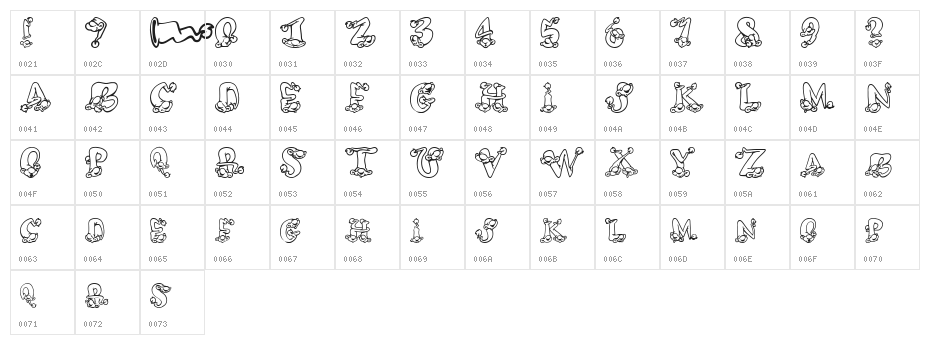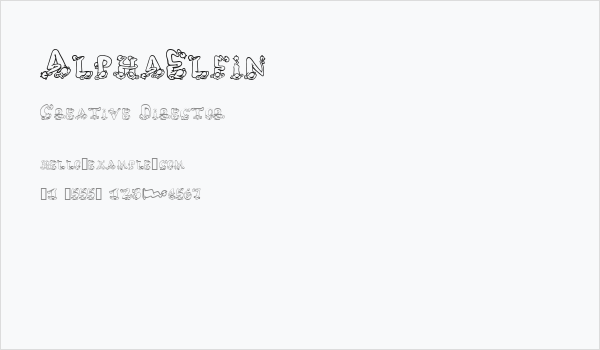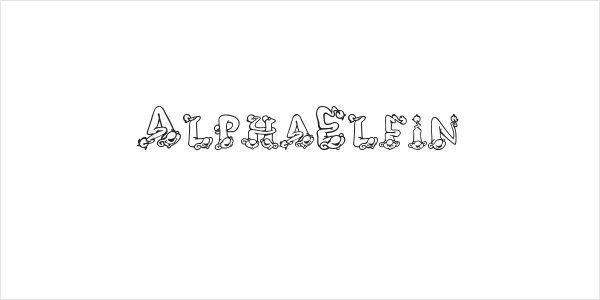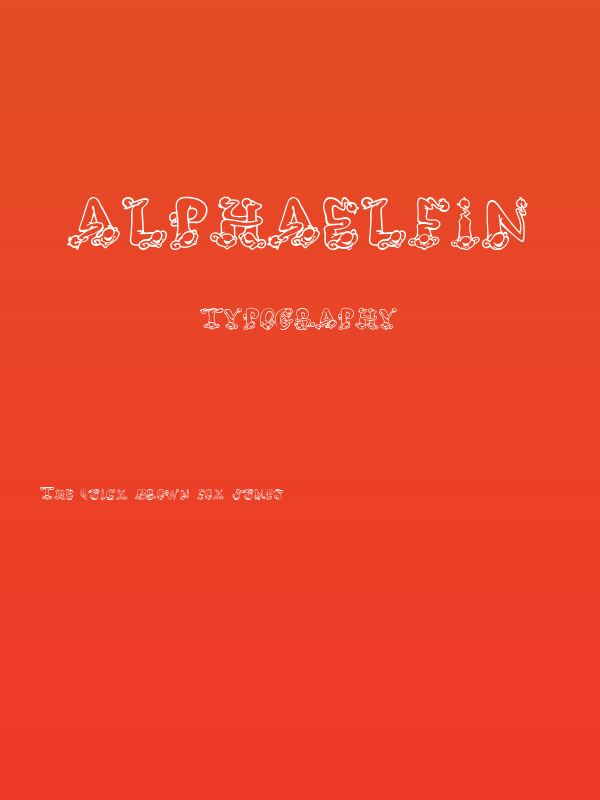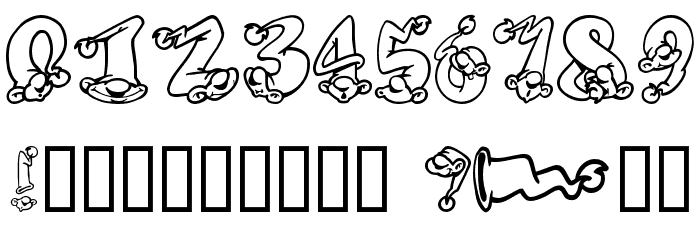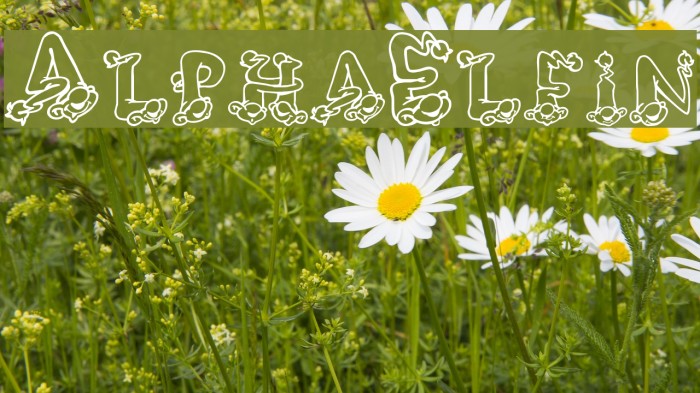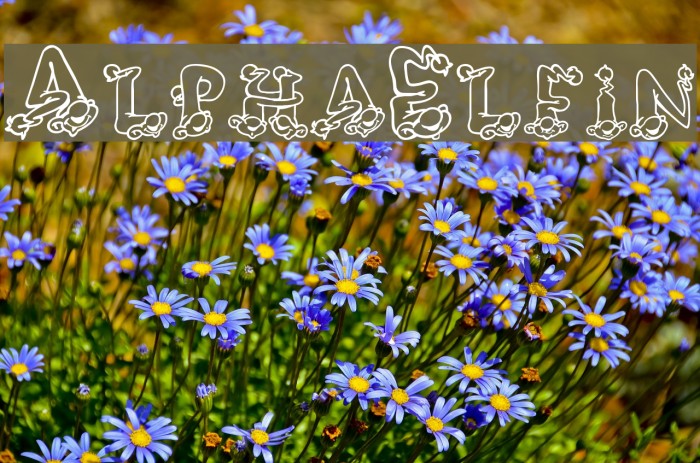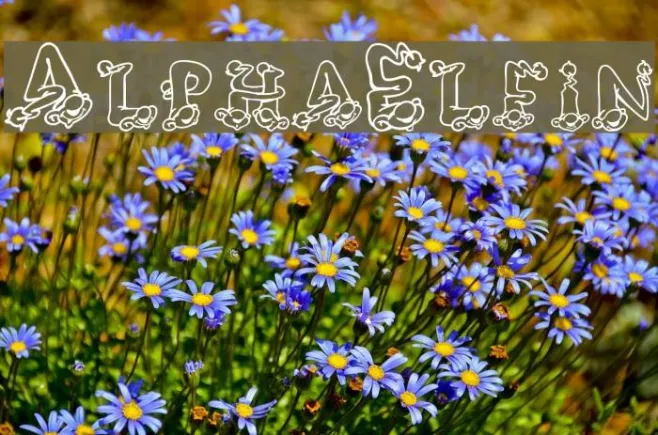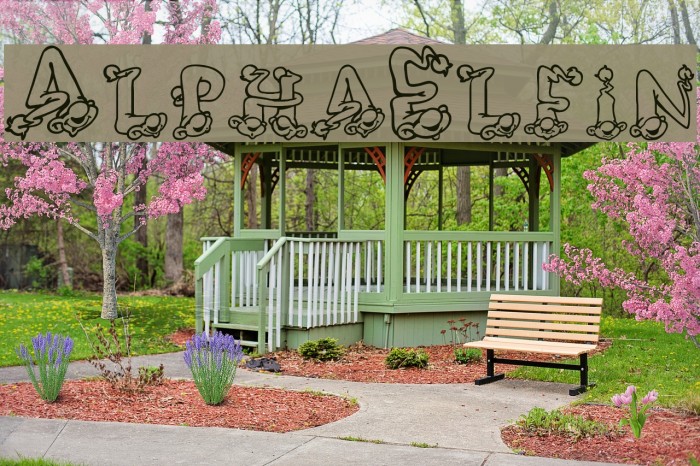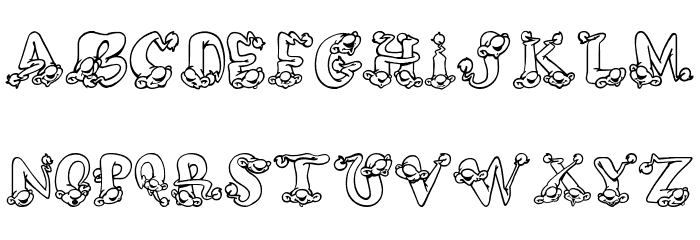
AlphaElfin Font
AlphaElfin Description
This whimsical and playful font features a unique design where each character is adorned with decorative, elfin-like embellishments. The letters are bold and have an organic, hand-drawn feel, with intricate details that give them a lively and animated appearance. The font maintains a consistent style across uppercase, lowercase, numbers, and special characters, making it visually cohesive. Its artistic flair and imaginative design make it stand out, perfect for projects that require a touch of fantasy or creativity.
| Proposed Projects | Ideal for fantasy-themed projects, children's books, playful branding, and creative invitations. |